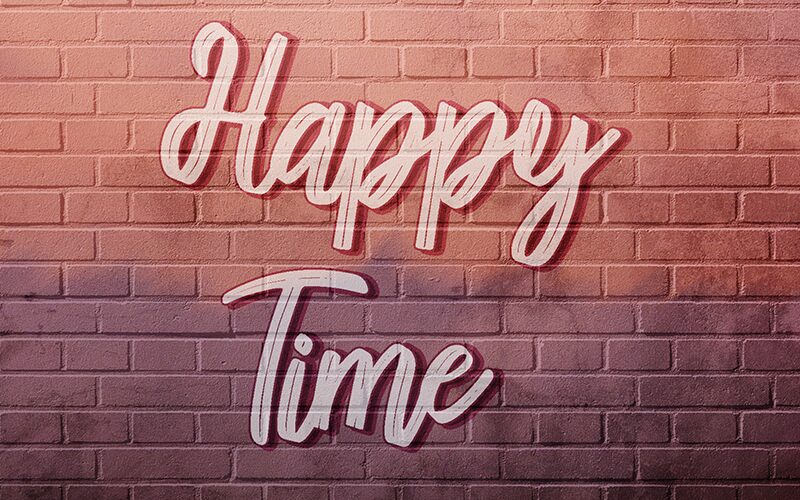
Happy Time font is a lovely brush typeface designed by Febryl Arully.
I designed this font with good and balanced graphics so that the use of the font will look good when composing paragraphs of sentences.